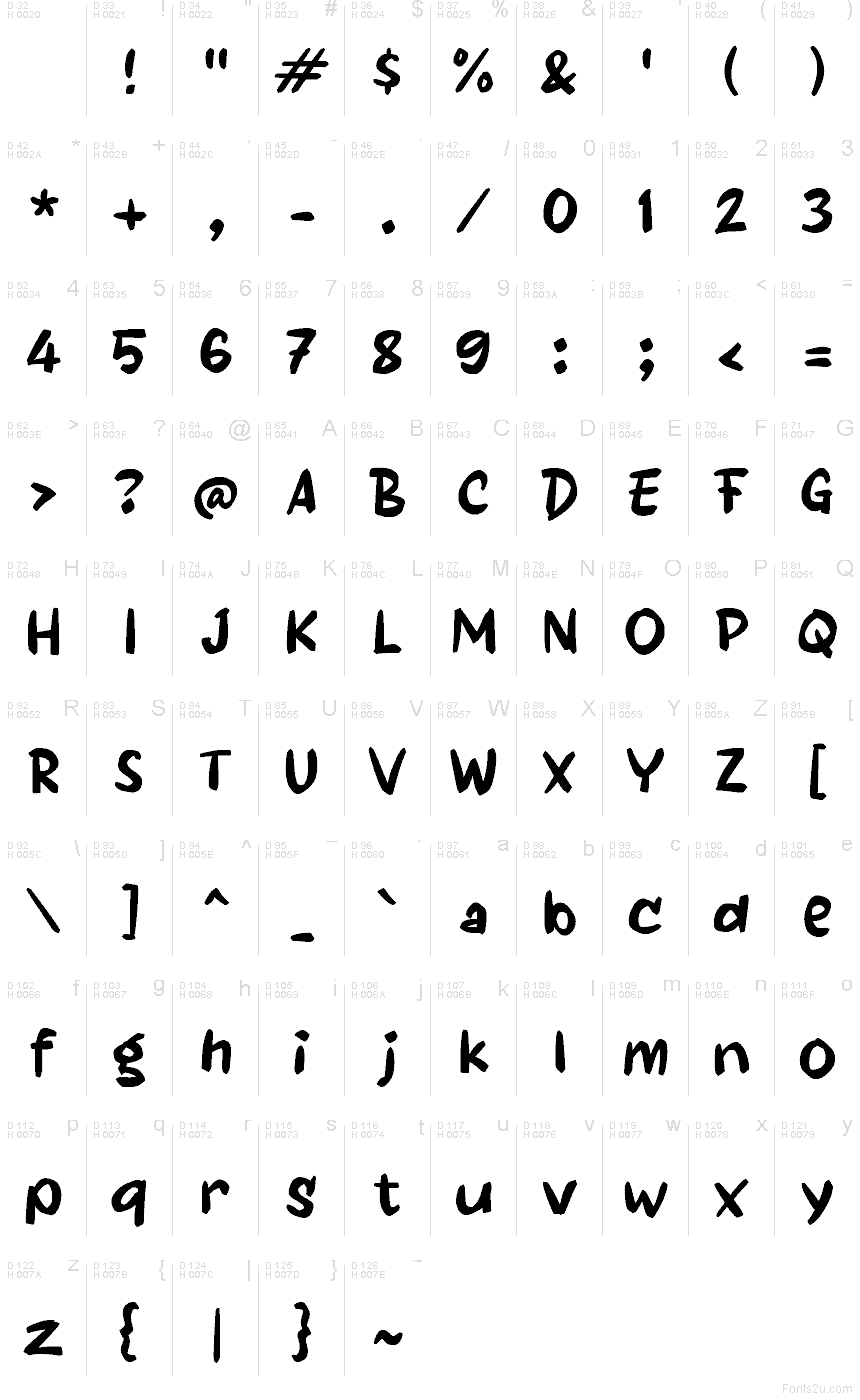
Paadagre
Paadagre font by wep is a free cartoon display typeface with a loose, inky energy that feels like it’s been painted in one quick, confident sweep. Its chunky strokes wobble just enough to feel hand-drawn and mischievous, while still staying bold and legible at a glance. The letters lean and bounce into each other, giving headlines a lively, storybook rhythm that instantly feels friendly and fun.
Using Paadagre, your titles and logos get that playful “scribbled by a creative kid” vibe without losing clarity. This free font shines on children’s book covers, comic titles, classroom posters, birthday invites, stickers, and casual game interfaces. Try pairing Paadagre with a clean geometric sans for body text and keep Paadagre big and airy, so its quirky shapes have room to breathe.